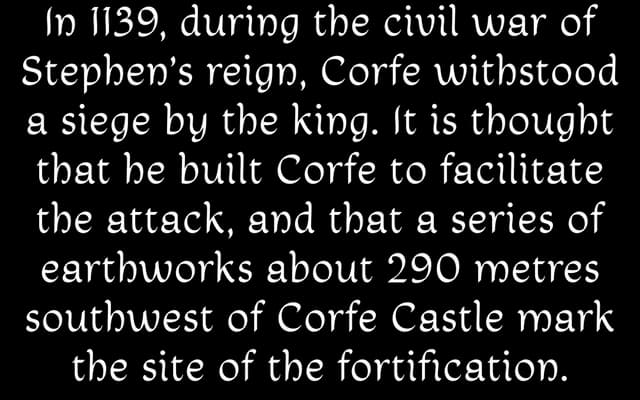
Corfe Regular
A single-weight serif with a companion italic, sold individually and suited to literary or editorial text setting.
Corfe Regular is a serif typeface sold as a standalone weight with a separately available italic. The specimen leans heavily on a piece of English prose evoking Corfe Castle in Dorset, signalling the foundry's interest in place and literary culture. Includes a webfont licence and a sample PDF for review before purchase.
The specimen text and the foundry's aesthetic suggest a traditional serif with classic proportions suited to literary and editorial prose; the companion italic and formal naming conventions point toward a transitional serif design.